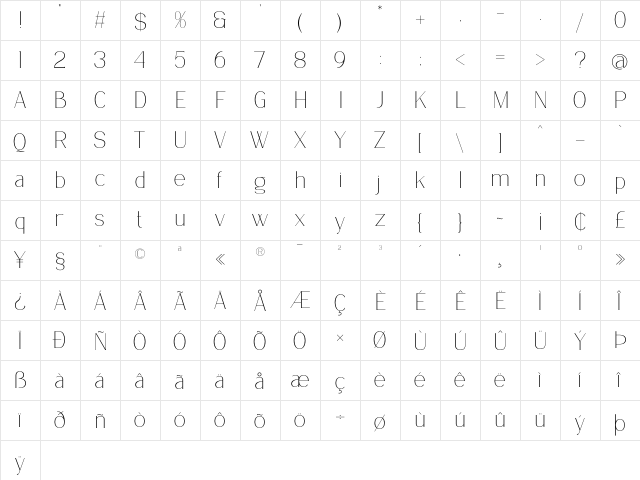
Delicate Elegance Regular Free Font
Delicate Elegance Regular
Foundry: Masyafi Studio
Designer: Masyafi Studio
Design Context for Delicate Elegance
Delicate Elegance is a composed and adaptable typeface that performs quietly and consistently across a wide range of design contexts.